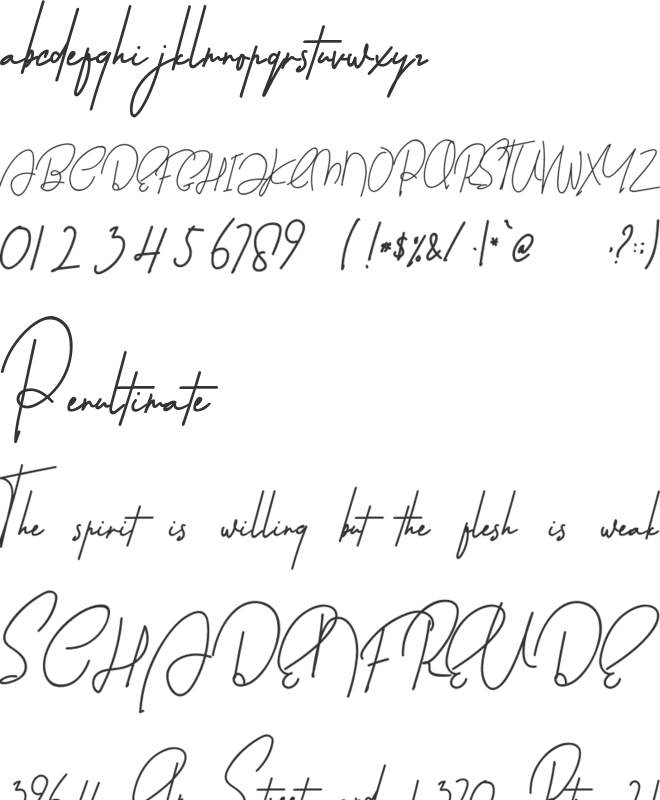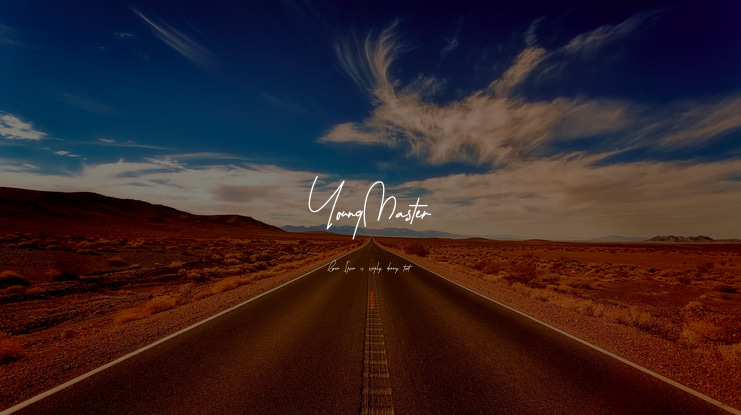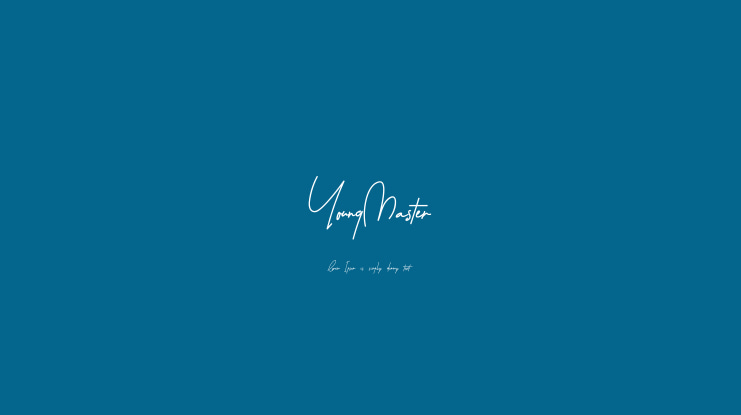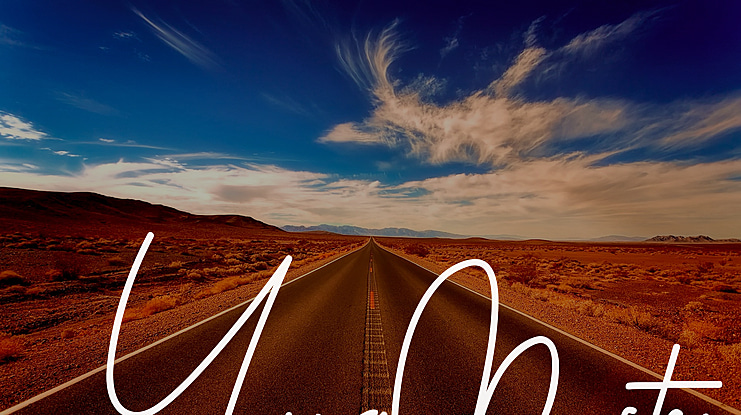
YoungMaster Font
This font retains a classy calligraphic influence while feeling contemporary and fresh. This versatility will attract a wide range of creative ideas, from letterheads and titles to stationery.